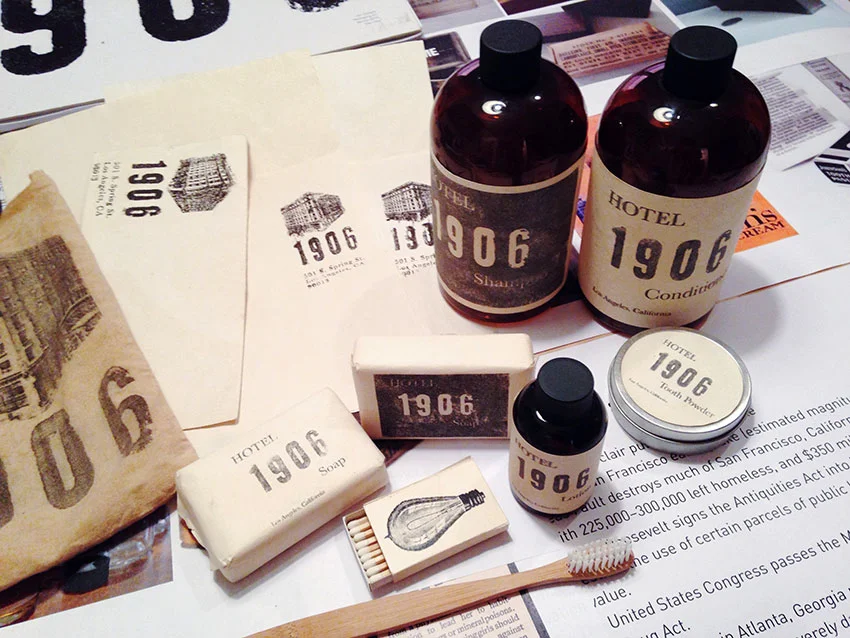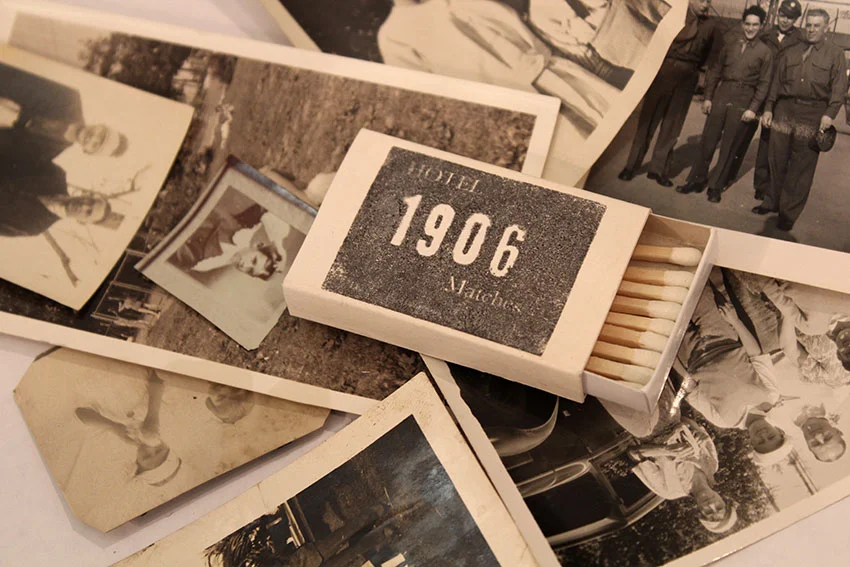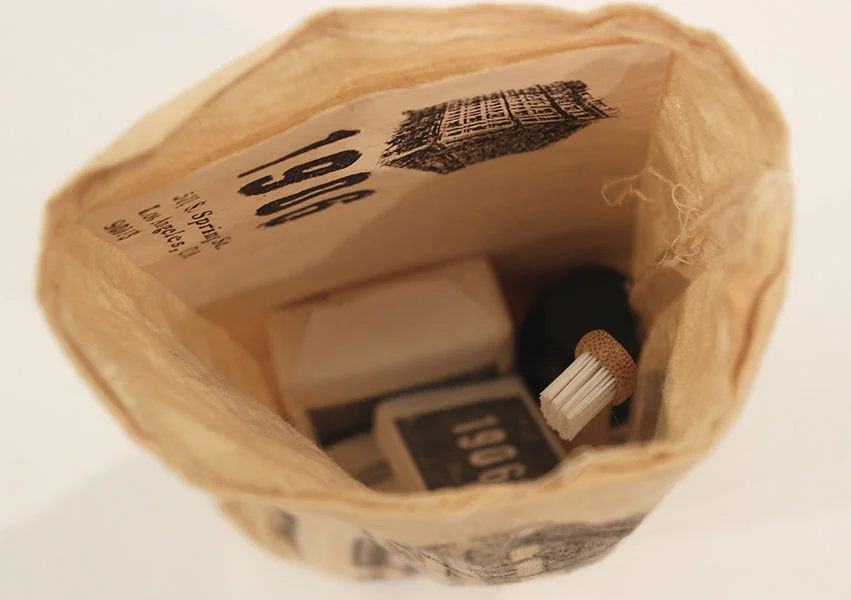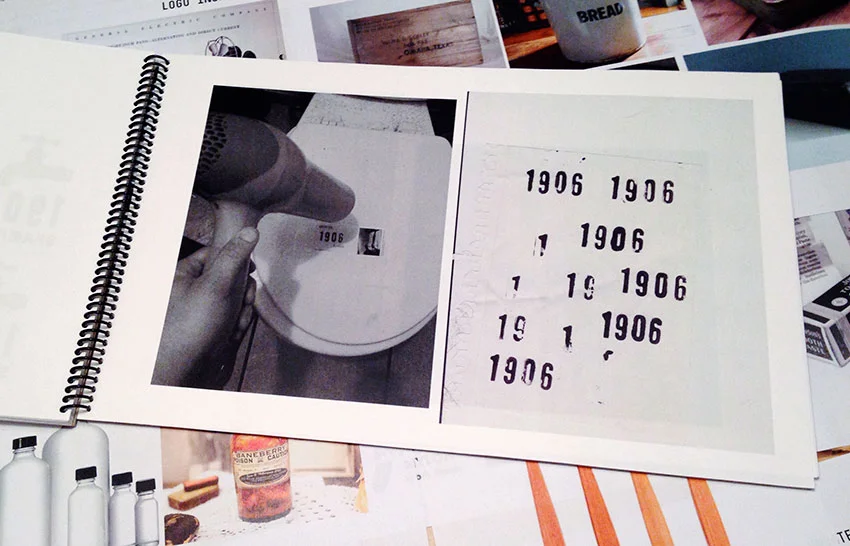
Jen Dodaro began buying records long before she knew how to use a record player, and purchased them mostly because she loved flipping through the liner notes/booklets inside. She had zero musical talent, but designing posters and album covers helped her stay connected with the music she loved. After high school she began taking art classes at a local community college and now she studies design at the Art Center College of Design in Pasadena.
What were the goals of the 1906 project?
1906 was a project started in my packaging class. My instructor, Dan Hoy, asked us to come up with a concept for health and beauty packaging. I wanted to focus on hotel amenities and took it a step further and created a hotel to go along with it. Most hotel toiletries are pretty boring and I wanted each item to feel like it had a story behind it. My goal was to create something guests would be excited to use and take home with them.
What was your creative process and design approach?
I began the project by studying life in the early 1900s. I wanted to know everything such as what people wore, what they did for fun, where they worked, etc. I spent a lot of time at flea markets and thrift stores and explored all of the old buildings in downtown LA. I used the Alexandria as the exterior for my hotel and the name 1906 comes from the year the Alexandria was built. I wanted all of the toiletries to feel like they were from the 1900s and used a rub on transfer process to make the type look old and decayed and stained everything in coffee.
How did you make your typographic choices?
I played around with a lot of typefaces in the beginning and most didn't seem right. I went to the Rose Bowl Flea Market to find inspiration a few times with this project and eventually found a set of number stamps that I loved. The 1906 logo was created using the vintage stamps and ink and then scanned in. Everything else is in Baskerville.